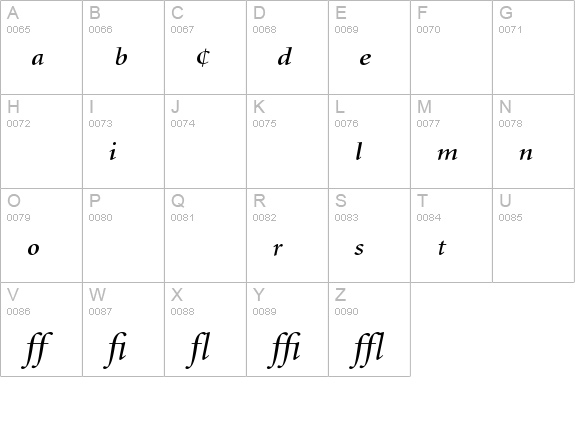
Minion Italic Display Expert Font Details
Minion Italic Display Expert is a distinctive, italic variant in the Minion typeface family \xE2\x80\x94 well suited to design and typography projects.